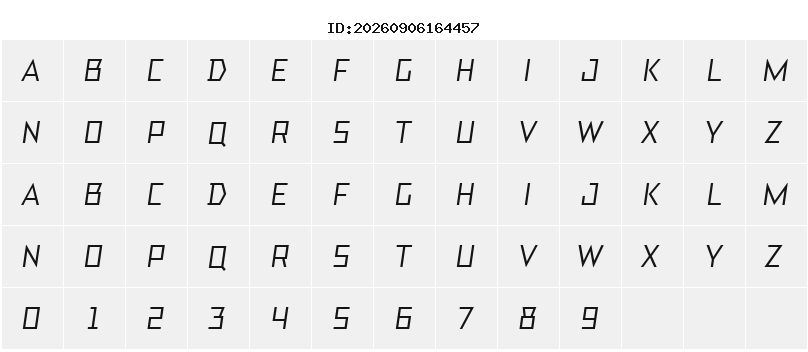
• Font Name: TT Bricks Medium Italic DEMO
• Font ID: TypeType: TT Bricks Medium Italic DEMO: 2016
• Full Font Name: TT Bricks Medium Italic DEMO
• PostScript Name: TTBricks-MediumItalicDEMO
• Character Count: 225
• Copyright: Copyright (c) 2016 by Typetype. Designer Ivan Gladkikh, technical designer Maria Mizeritskaya. All rights reserved.
• Designer: TypeType
• Manufacturer: TypeType
• Description: Designed for Typetype in 2016 by Ivan Gladkikh. TT Bricks is one of series of font families which were designed for use in web and mobile applications, print and multimedia environments.
About TT Bricks Medium Italic DEMO.ttf
TT Bricks Medium Italic DEMO.ttf is a modern, elegant sans-serif font designed for ultimate readability and visual harmony. Perfect for branding, headlines, web design, and print materials.